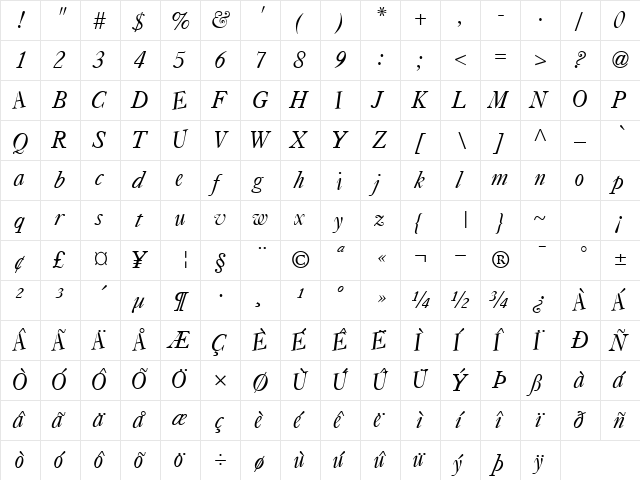
Un Regular
Design Context for Un Typeface
Un takes a measured approach to typography — its balanced proportions and neutral character make it a reliable workhorse for both digital and print work.